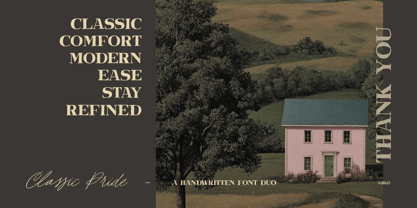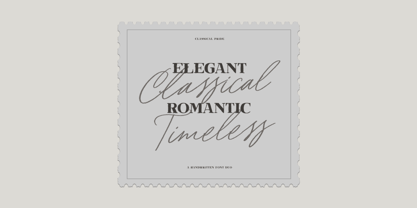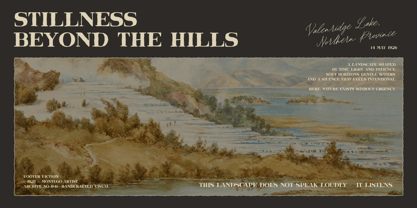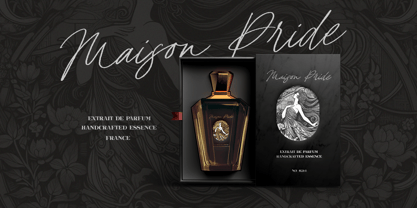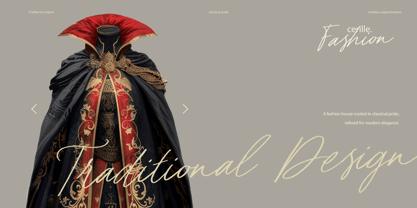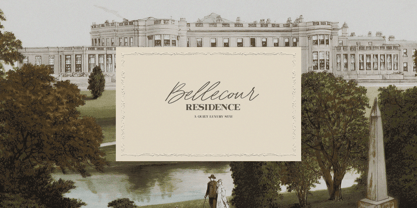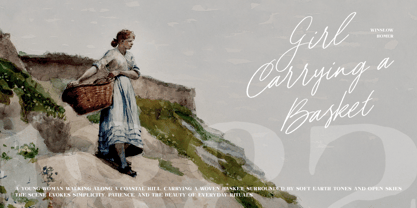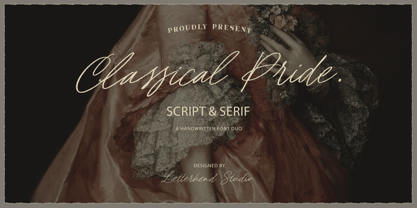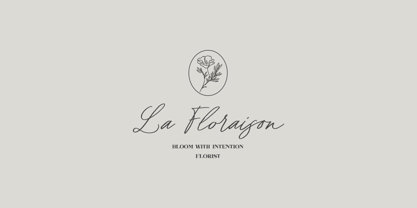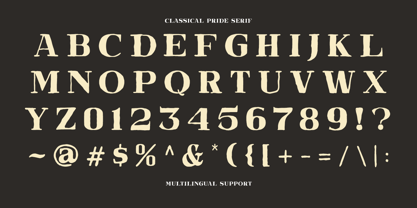
Classical Pride
by Letterhend
Classical Pride is a handwritten font duo that mixes soft, flowing script with a clean, classic serif. The script feels graceful and romantic, while the serif keeps everything grounded and timeless. This duo works beautifully for branding, packaging, editorials, invitations, and refined visual layouts that need a calm, classic, and polished touch Features : Uppercase & lowercase Numbers and punctuation Alternates & Ligatures Multilingual Support PUA encoded